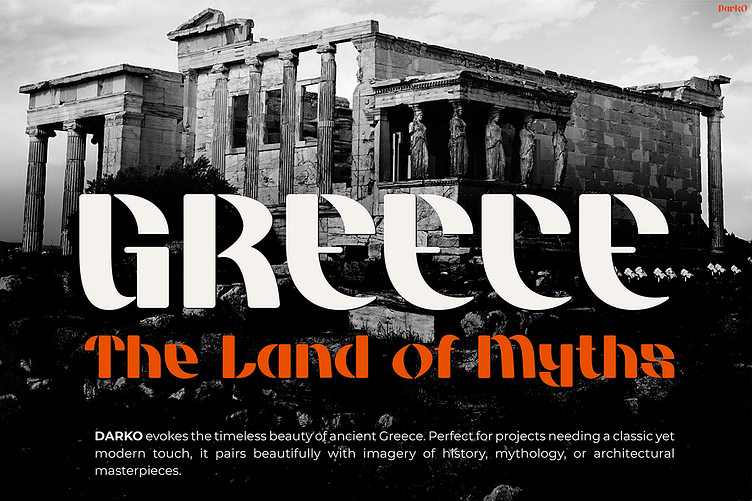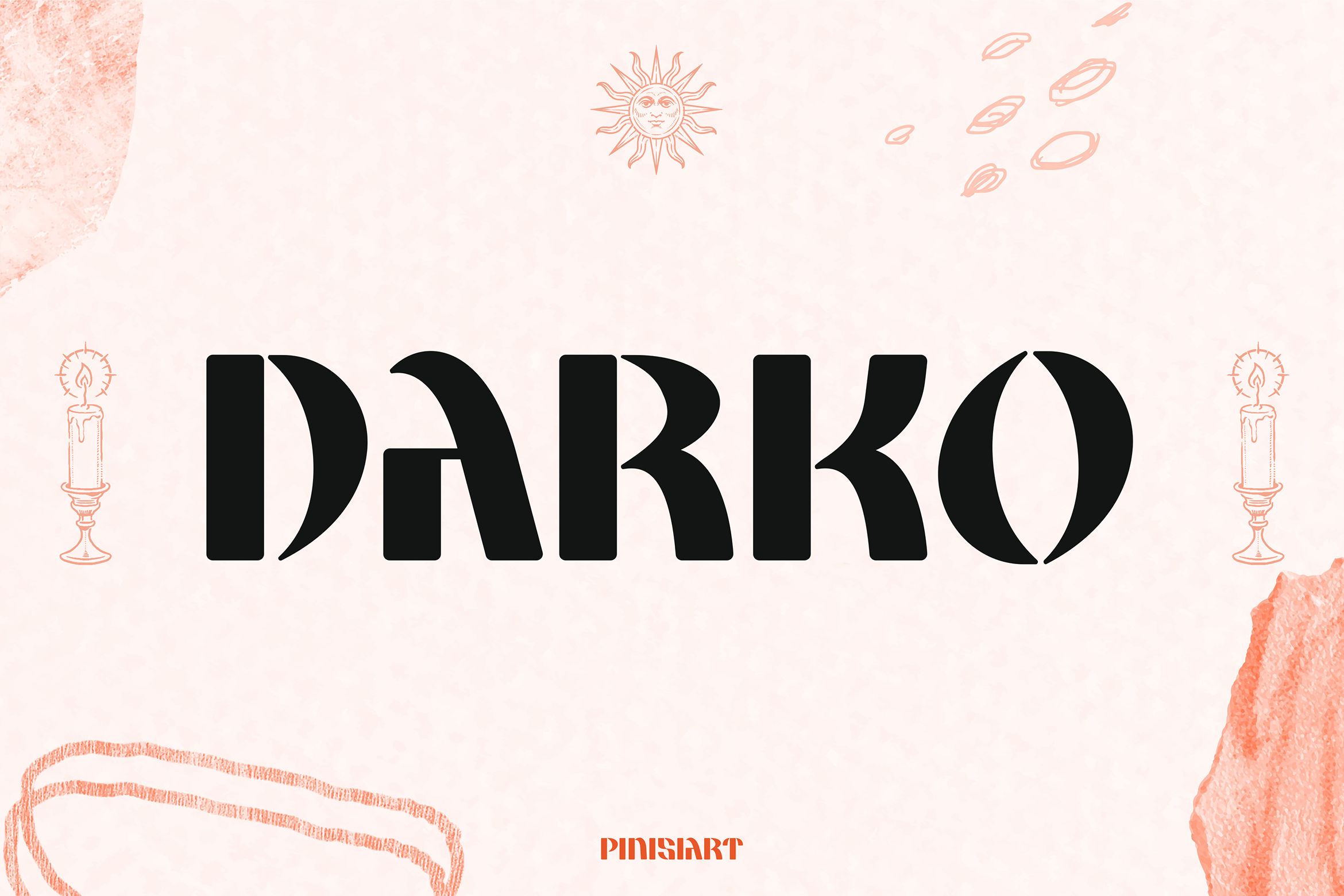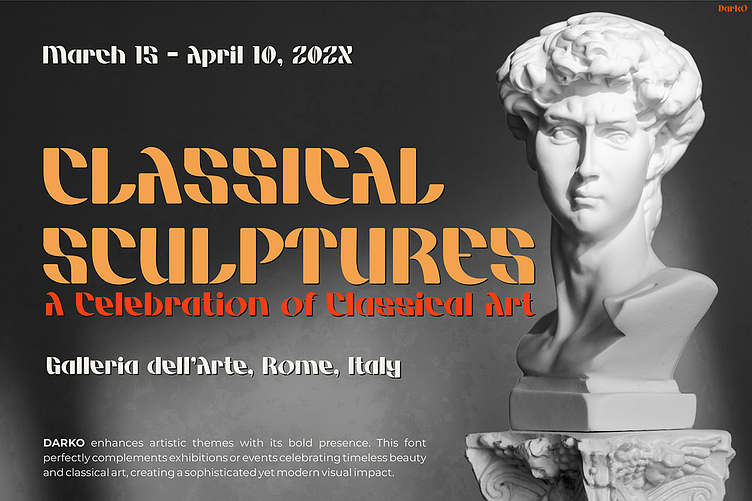
DARKO – Blackletter Font
Tattoo Font DARKO is a bold and stylish typeface that blends modern aesthetics with ancient allure. Featuring sharp edges and fluid curves, this font combines elegance with contemporary design. It stands out with its clean, geometric forms and artistic details, making it versatile for various creative projects. Inspired by classical influences and vintage tattoo art, Tattoo Font DARKO offers a unique and striking look. It is ideal for projects that need a balance of history and modernity. With distinct letterforms and smooth transitions, this font is perfect for headers, logos, and branding.
This typeface captures the imagination with its dramatic yet harmonious style. The bold strokes and intricate details make it a standout choice for anyone looking to create a lasting impression. Whether used for print or digital designs, Darko ensures readability while adding a touch of flair. Its timeless appeal draws from historical art movements while embracing a fresh and modern perspective. By combining versatility with originality, this font opens up endless design possibilities.
Tattoo Font DARKO Ideal For
The font works well for album covers, editorial layouts, and other designs demanding strong typography. Whether crafting a luxury brand or a personal project, DARKO offers versatility and creative potential to bring your vision to life.
Event organizers and marketers will also find Tattoo Font DARKO useful for promotional materials such as banners, invitations, and signage. Its bold yet elegant design ensures it captures attention while maintaining a polished aesthetic. Additionally, the font’s adaptability makes it suitable for both formal and casual designs, giving users the flexibility to experiment with different concepts.
Darko is not just limited to professionals. Hobbyists and enthusiasts who enjoy crafting personalized content can also benefit from its dynamic style. Whether you’re creating a custom greeting card, a social media post, or a DIY project, this font adds a professional touch to any creation. With its combination of artistry and functionality, Tattoo Font DARKO is a must-have for anyone passionate about design.